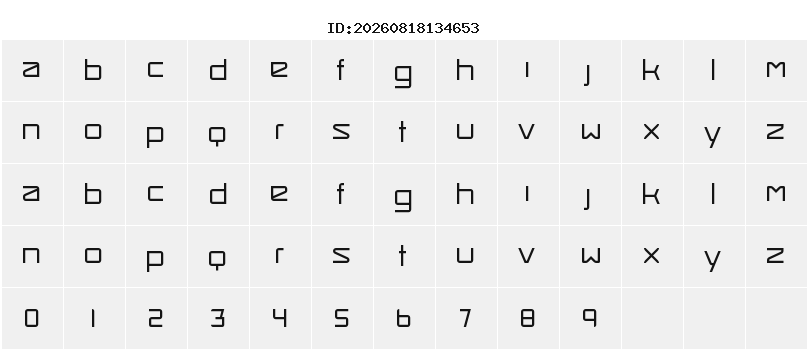
Smash Hit Preview
• Font Name: Smash Hit
• Font Style: Light
• Font ID: Smash Hit Light:Version 1.00
• Full Font Name: Smash Hit Light
• Version: Version 1.00 March 28, 2014, initial release
• PostScript Name: SmashHit-Light
• Character Count: 242
• Designer: Henrik K Johansson
About Smash Hit.ttf
Smash Hit.ttf is a modern, elegant sans-serif font designed for ultimate readability and visual harmony. Perfect for branding, headlines, web design, and print materials.